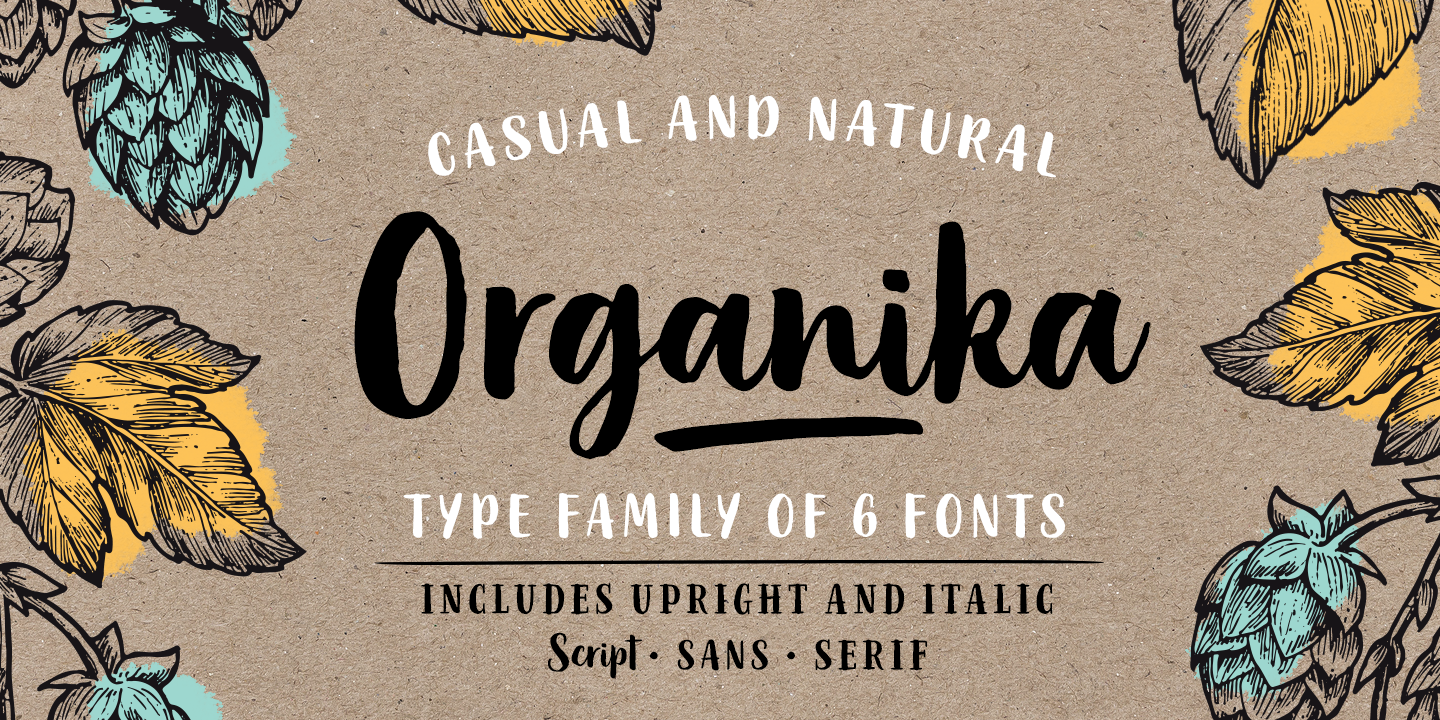
Organika Font is perfect for natural product packaging, organic food branding, eco-friendly marketing campaigns, wellness center materials, sustainable fashion labels, health food store signage, environmental organization designs, and green lifestyle brands that celebrate natural living and environmental consciousness.
Organika Font is exciting because it captures the essence of natural beauty with its flowing, organic letterforms that seem to grow from the earth itself. The font's soft curves and natural variations mirror the imperfect perfection found in nature, creating an authentic connection to sustainability and environmental harmony that resonates with eco-conscious audiences.
The Organika Font family includes earth-inspired variations: Light, Regular, Medium, Bold, and Eco Script versions. Each style maintains the font's signature natural charm while offering different levels of visual impact, allowing designers to create cohesive branding systems that authentically represent environmental values and organic lifestyle choices.
This sustainable typeface brings natural beauty and environmental consciousness to every design application. Whether you're creating organic product labels, eco-tourism materials, or green technology branding, Organika Font Free Download delivers authentic natural character that instantly communicates environmental responsibility and sustainable values. The font's carefully crafted letterforms feature gentle curves and organic flow that evoke the rhythms of nature and growth. Designers love its ability to convey freshness, purity, and environmental stewardship across various applications from packaging to digital campaigns. The comprehensive character set includes natural symbols and decorative elements that enhance the eco-friendly aesthetic. With its sustainable appeal and organic charm, Organika Font transforms any project into a celebration of natural living and environmental awareness, making it the perfect choice for brands and designs committed to protecting our planet while creating meaningful connections with environmentally conscious consumers.